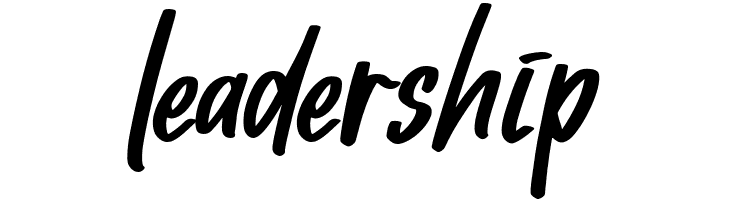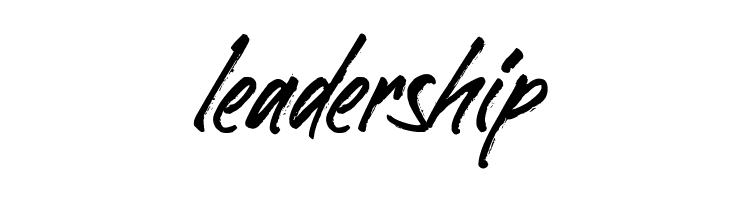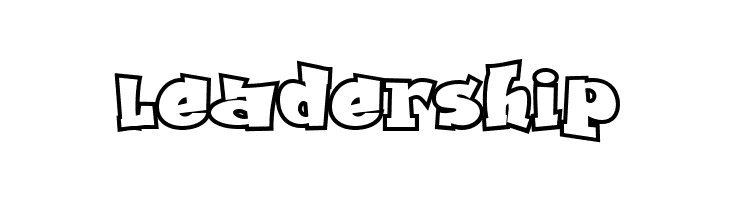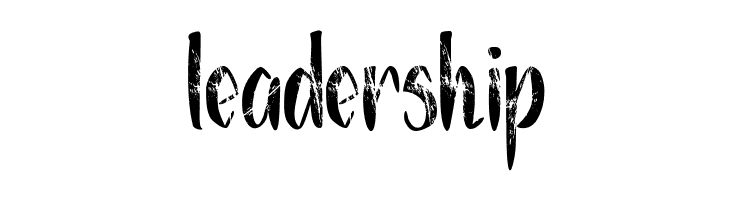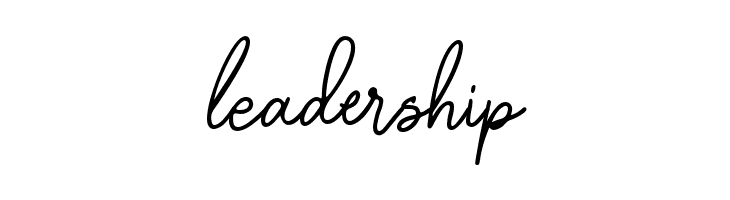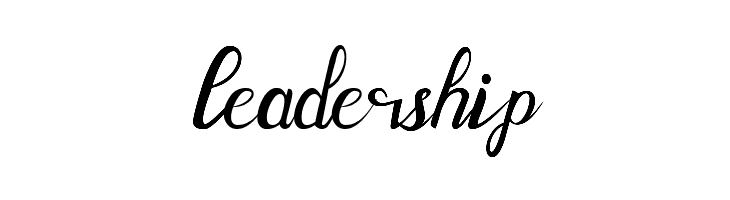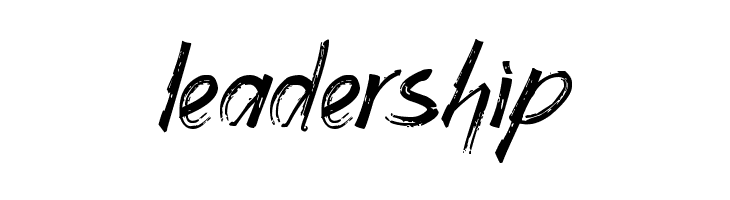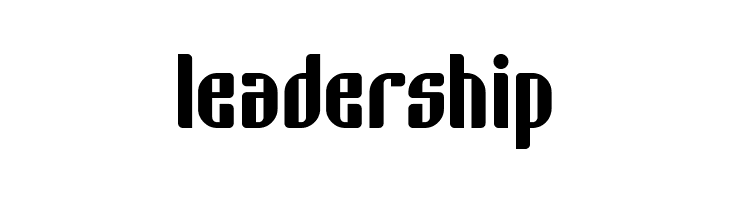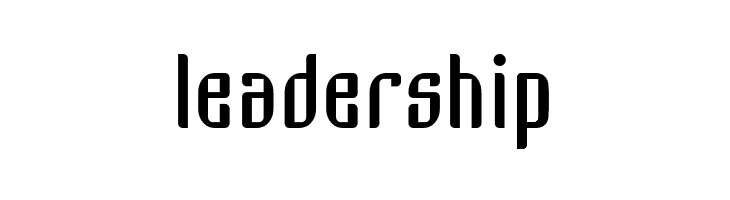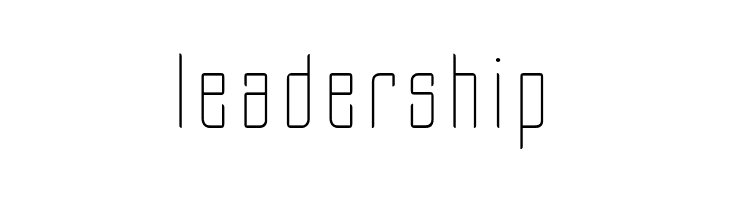
A dynamic and fluid script font with elegant, flowing letterforms.
A graceful and elegant script font with flowing, connected strokes.
A charming handwritten font with fluid, connected letterforms and a casual elegance.
A bold, handwritten-style font with dynamic and expressive characters.
A distressed, gothic-inspired font with a grunge aesthetic and varied stroke thickness.
A bold, modern font with gothic influences and geometric structure.
A bold, brush-style font with dynamic, hand-painted strokes.
A dynamic and elegant script font with flowing, cursive letterforms.
A bold, flowing script font with elegant, interconnected strokes and high contrast.
A bold, brush-style font with a dynamic, handwritten appearance.
A dynamic, handwritten-style font with medium contrast and playful energy.
A playful, handwritten font with smooth curves and a casual style.
A bold, expressive handwritten font with dynamic strokes.
A fluid and elegant handwritten script with smooth, continuous strokes.
A bold, expressive handwritten font with dynamic brush strokes.
A dynamic brush script font with expressive, fluid strokes and a hand-painted texture.
Expressive graffiti-style handwritten font with bold, playful strokes.
A bold, graffiti-style font with sharp angles and thick strokes.
A playful, hand-drawn font with bold, rounded strokes and an informal style.
A bold, graffiti-inspired font with thick outlines and dynamic shapes.
A modern, geometric font with rounded edges and a condensed style.
A bold, modern font with thick strokes and a strong visual impact.
A bold, modern font with a geometric and condensed style.
A bold, modern font with rounded edges and a strong visual impact.
A modern, geometric sans-serif font with rounded edges and a condensed style.
A sleek, modern font with thin, elongated characters and a minimalist design.
A bold, geometric font with sharp edges and a condensed, industrial style.
A bold, geometric font with a modern and robust design.
A casual handwritten font with smooth, flowing curves and a friendly appearance.
Elegant italic font with smooth curves and a dynamic style.
A dynamic, cursive script font with a fluid, handwritten style.
A bold, elegant serif font with a classic yet modern appeal.